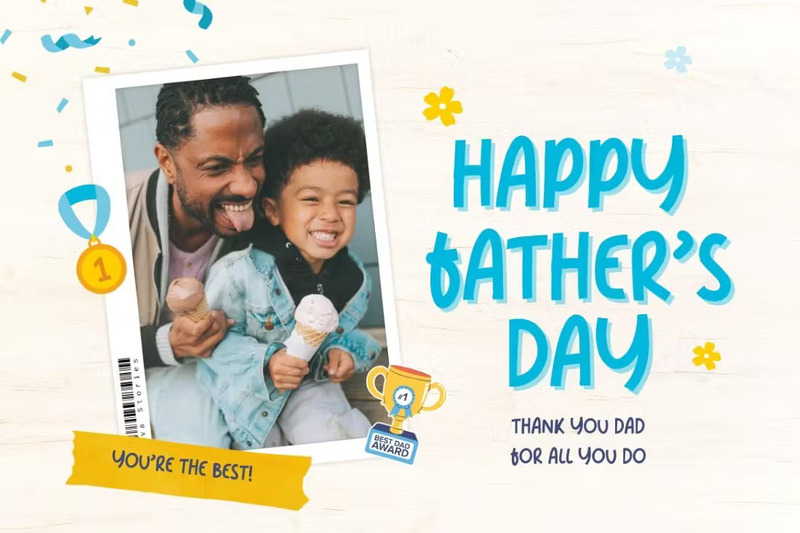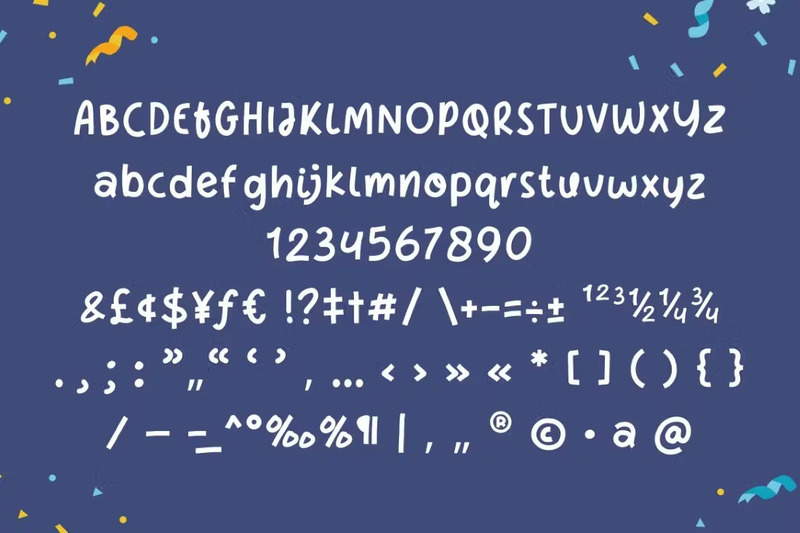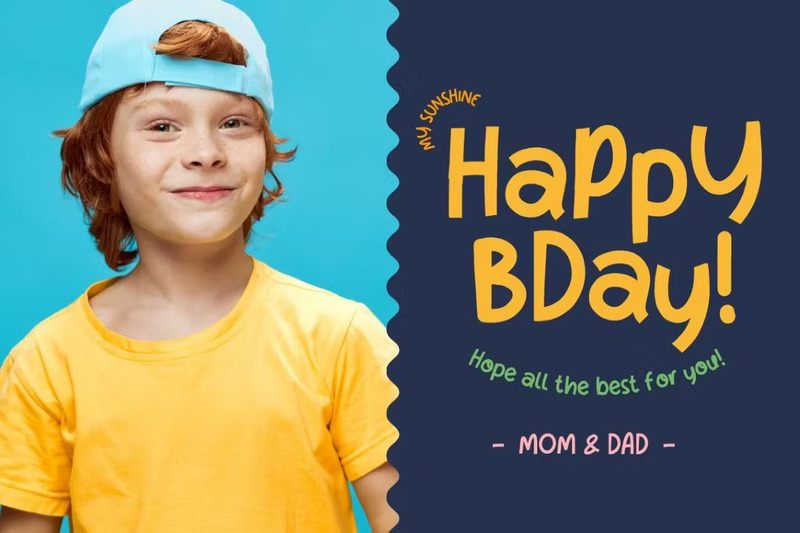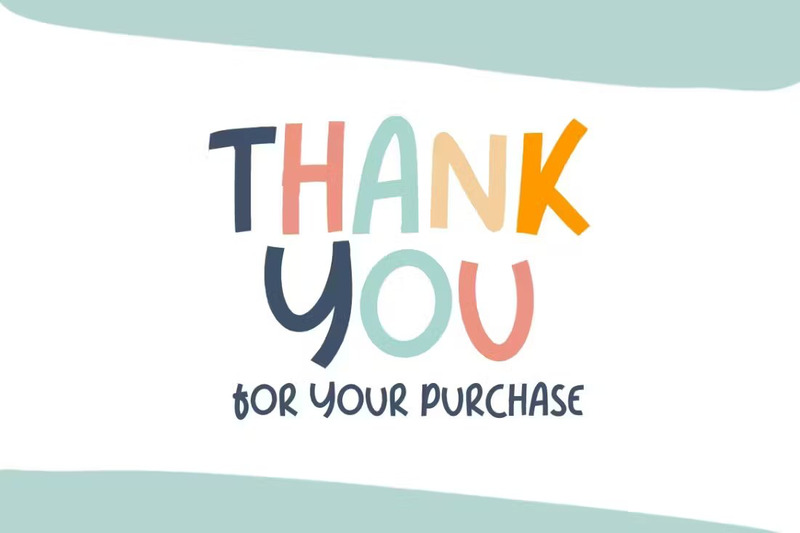
Brown Fox - Playful Handwritten Display Font
Transform your designs with the enchanting "Brown Fox" display font, tailored to infuse every project with playful charm. This handwritten font is your gateway to captivating the fun vibe and those young at heart.
Crafted to make your content fun and cute, "Brown Fox" is the ideal choice for book covers and captivating displays. Its sweet, kid-friendly appeal is perfectly suited for a variety of projects. Whether it's web design, posters, or other creative endeavors, this font ensures your work stands out and engages your audience. Elevate your SEO rankings and make your projects come alive with the delightful "Brown Fox" font today!